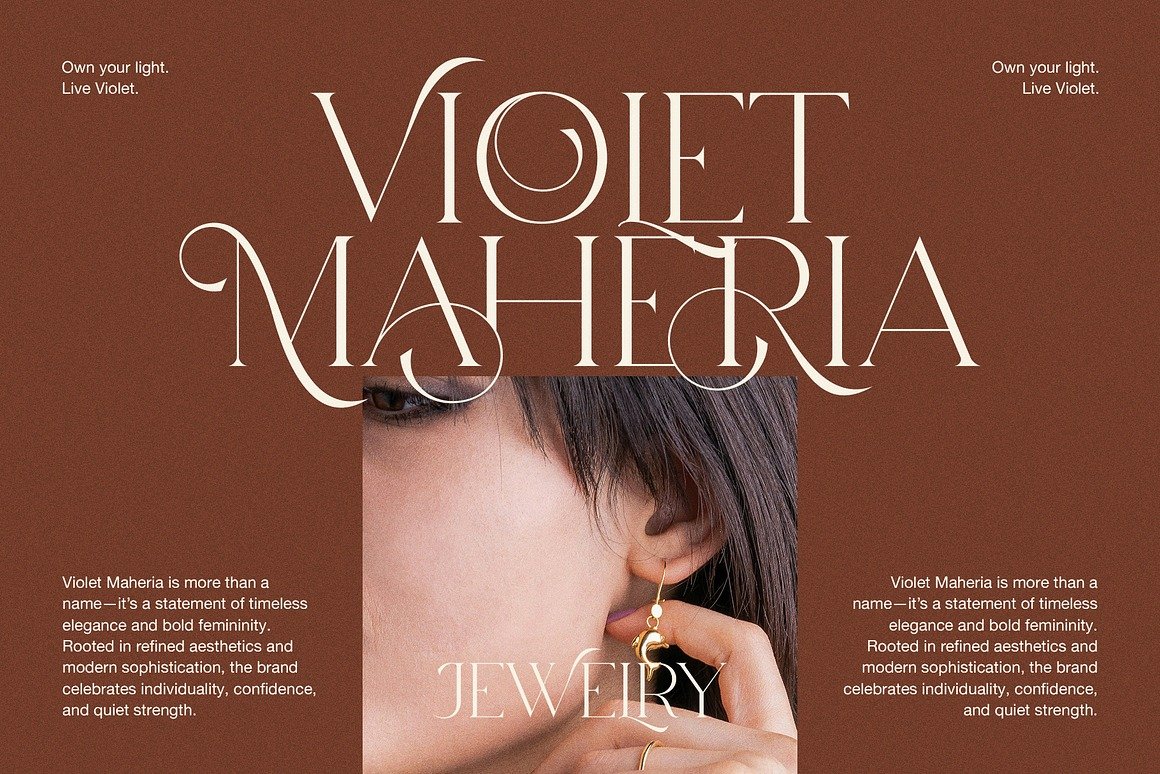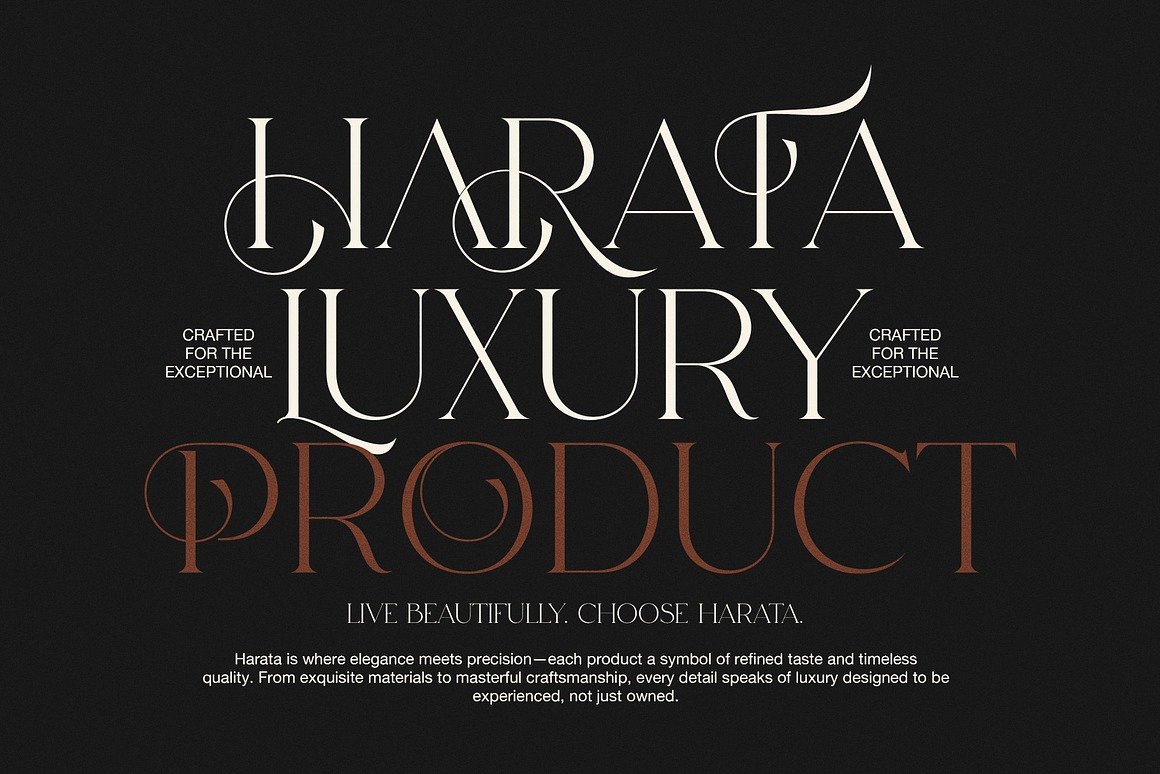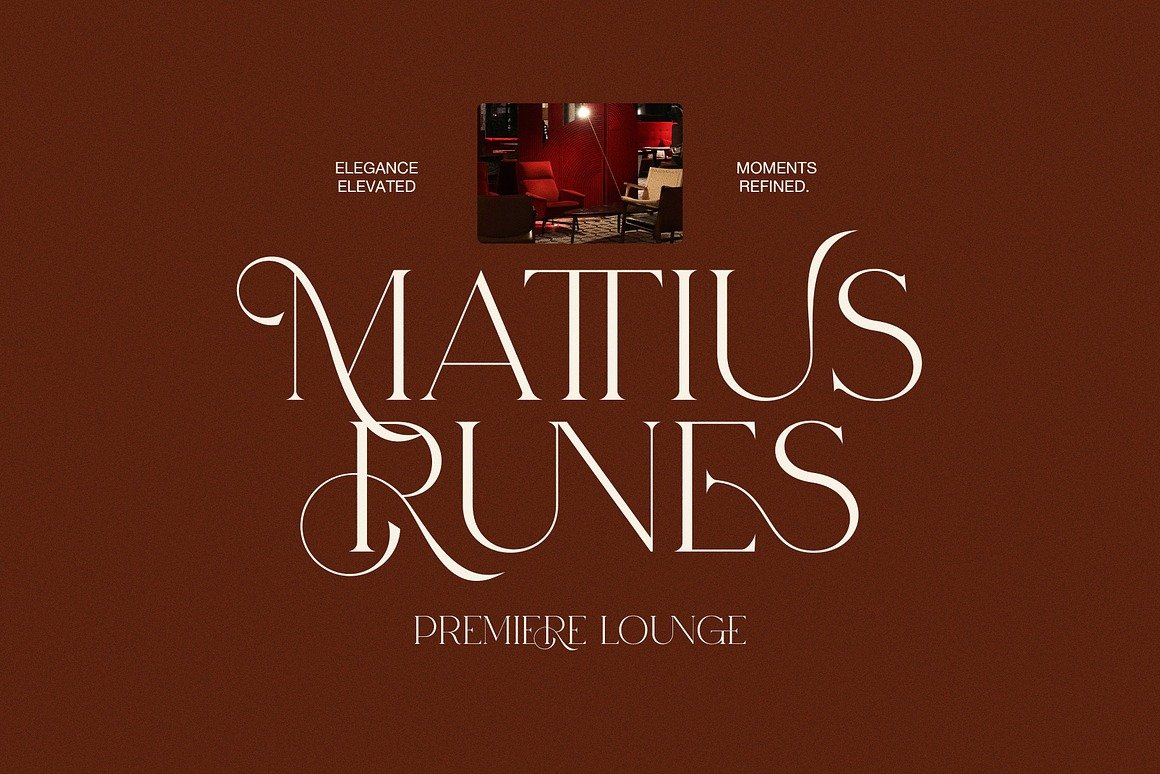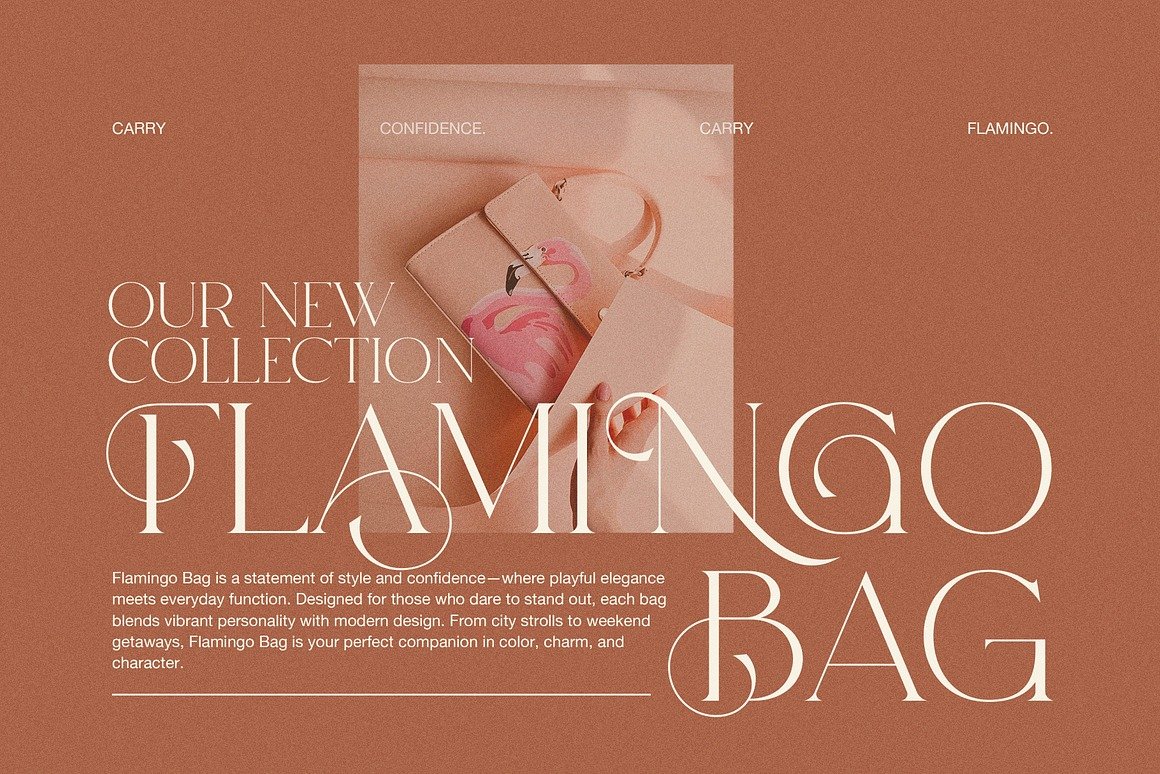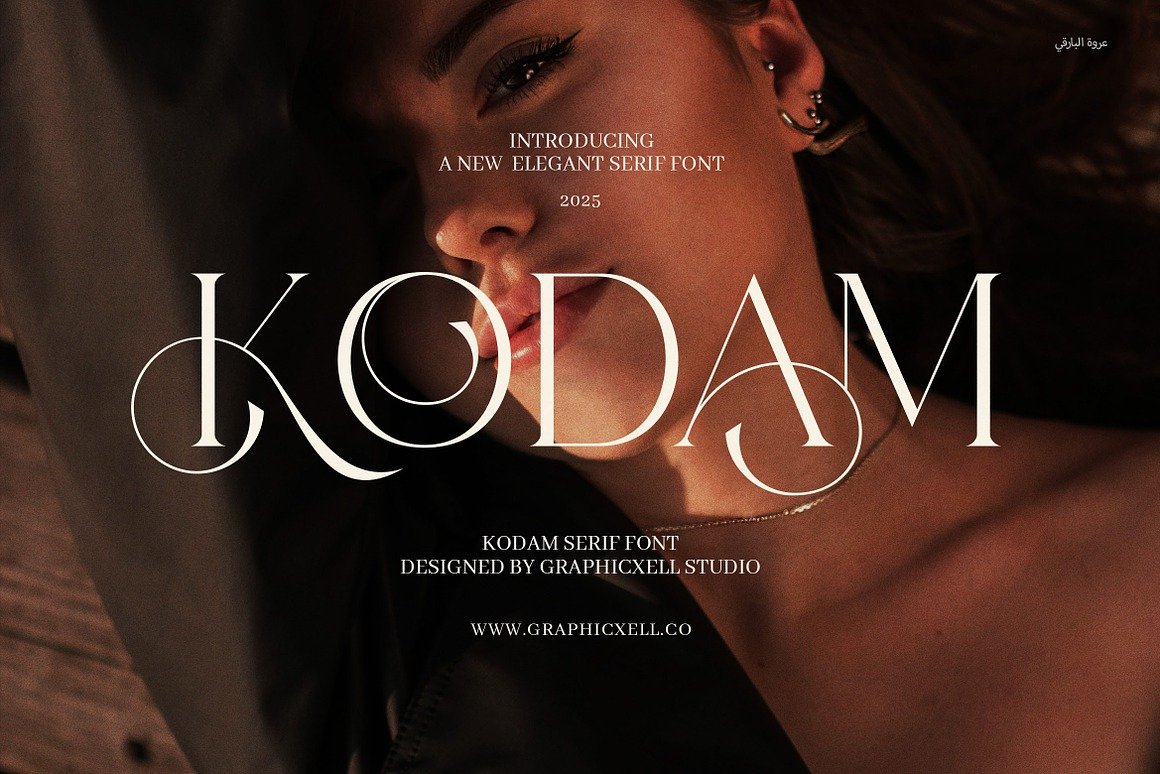
Kodam Stylish Serif Font
Kodam Stylish Serif Font: A Lavishly Articulated Typographic Expose
Introducing Kodam Stylish Serif, a modern serif typeface that exudes grace, creativity, and sophistication in every letter. Designed with refined curves and subtle contrasts, Kodam is a stylish serif font that brings a distinctive charm to your designs while maintaining high readability and versatility across both digital and print applications.
Crafted for modern branding and creative expression, Kodam strikes the perfect balance between classic typography and fresh, contemporary aesthetics. Its graceful serifs, well-balanced letterforms, and elegant proportions give it a high-end, luxurious feel—making it ideal for projects that require a strong visual presence with a soft, sophisticated touch.